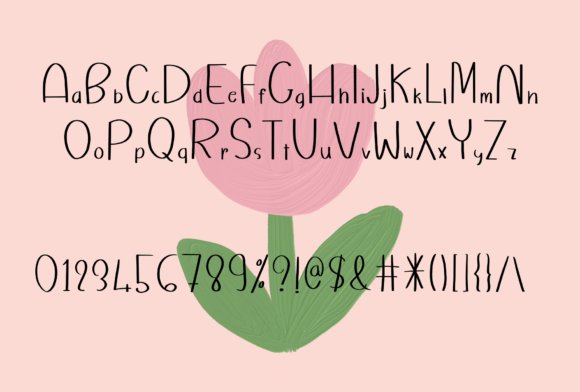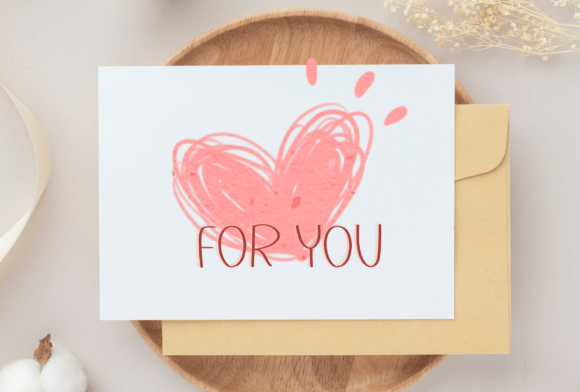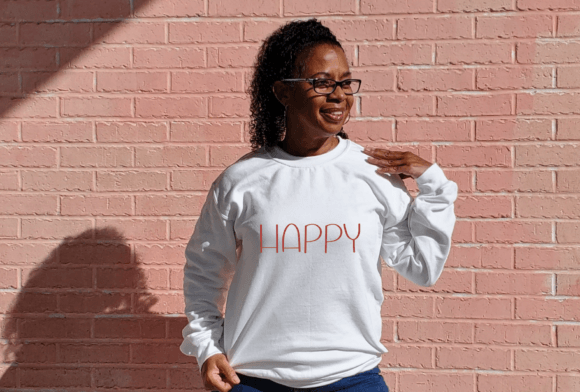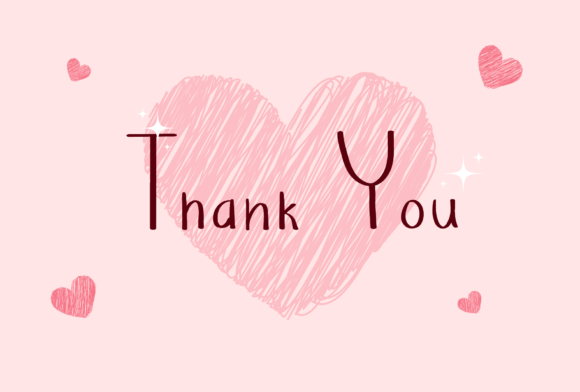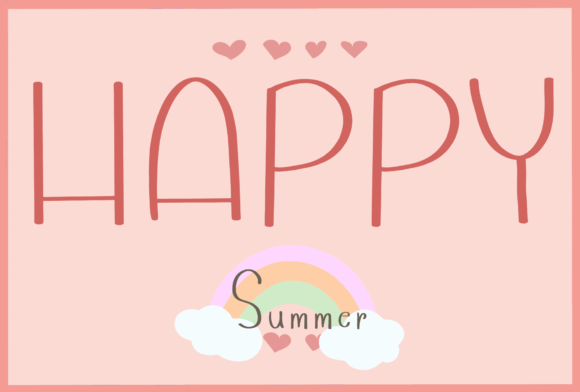
Introducing Happy Summer Font: The Perfect Addition to Your Design Projects
Are you a designer or crafter looking for a font that can add a playful touch to your projects? Look no further than Happy Summer Font! This simple and cute handwritten font is incredibly versatile and perfect for a wide variety of projects, from stickers and notes to cards, apparel, planners, and more.
What Makes Happy Summer Font So Special?
Happy Summer Font is a unique and charming font that is sure to capture the hearts of designers and crafters alike. Its playful vibe makes it perfect for projects that require a personal touch, such as:
- Stickers: Add a fun and playful touch to your stickers with Happy Summer Font.
- Notes: Use Happy Summer Font to add a personal touch to your notes and journals.
- Cards: Create beautiful and unique greeting cards with Happy Summer Font.
- Apparel: Add a playful touch to your t-shirts, hoodies, and other apparel with Happy Summer Font.
- Planners: Use Happy Summer Font to add a fun and colorful touch to your planners and organizers.
Key Features of Happy Summer Font
Here are some of the key features that make Happy Summer Font a must-have for designers and crafters:
- Handwritten style: Happy Summer Font has a beautiful handwritten style that gives it a personal and unique touch.
- Simple and cute: The font is simple and cute, making it perfect for a wide variety of projects.
- Playful vibe: Happy Summer Font has a playful vibe that is sure to add a fun touch to your projects.
- Versatile: The font is incredibly versatile and can be used for a wide range of projects.
How to Use Happy Summer Font
Benefits of Using Happy Summer Font
| Font Name | Happy Summer Font |
| Author | Itme_digitalart |
In conclusion, Happy Summer Font is a simple and cute handwritten font that is perfect for a wide variety of projects. Its playful vibe and versatility make it a must-have for designers and crafters. Whether you’re looking to add a personal touch to your projects or simply want to try something new, Happy Summer Font is the perfect choice.